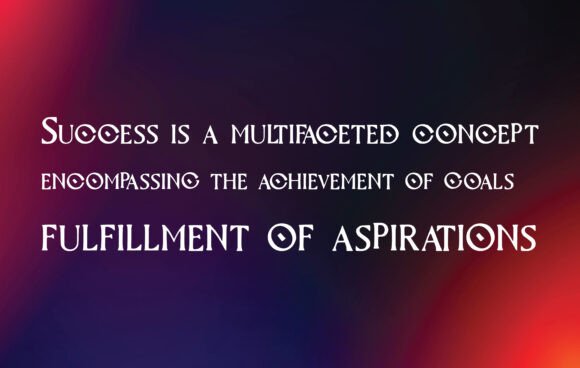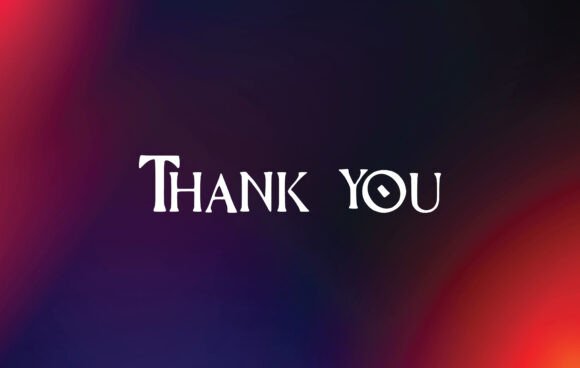
Introducing Everly Font: Elevate Your Designs with Elegance and Versatility
Are you tired of using the same old fonts in your designs? Look no further than Everly Font, a game-changing typeface that’s about to become your new favorite. This font is designed to be a true favorite, and for good reason – it’s legible, versatile, and looks great as both title and body text. Whether you’re a designer, crafter, or DIY enthusiast, Everly Font has the potential to take your creative ideas to the highest level.
What Makes Everly Font So Special?
Everly Font is more than just a pretty face – it’s a highly functional and adaptable typeface that’s perfect for a wide range of design applications. Its clean lines, elegant curves, and generous spacing make it easy to read and visually appealing. Whether you’re using it for magazine headlines, t-shirts, social media graphics, branding, wedding invitations, or cards, Everly Font is sure to impress.
One of the best things about Everly Font is its incredible versatility. Here are just a few ideas to get you started:
- Magazine Headlines: Use Everly Font to create eye-catching headlines that grab readers’ attention and draw them in.
- T-Shirts and Apparel: Add a touch of elegance to your t-shirt designs with Everly Font – it’s perfect for creating stylish and memorable logos.
- Social Media Graphics: Elevate your social media presence with Everly Font – use it to create stunning graphics that showcase your brand’s personality.
- Branding: Establish a consistent brand identity with Everly Font – it’s perfect for creating logos, business cards, and other marketing materials.
- Wedding Invitations: Make your wedding invitations truly special with Everly Font – its elegant design is sure to impress your guests.
- Cards and Stationery: Add a touch of sophistication to your cards and stationery with Everly Font – it’s perfect for creating beautiful and memorable correspondence.
Why Designers and Crafters Love Everly Font
So why do designers and crafters love Everly Font so much? Here are just a few reasons:
- Legibility: Everly Font is incredibly easy to read, even at small sizes – making it perfect for body text and captions.
- Flexibility: Everly Font is highly adaptable and can be used in a wide range of design applications.
- Elegance: Everly Font has a sophisticated and elegant design that’s sure to elevate your designs.
- Uniqueness: Everly Font is a unique and distinctive typeface that’s sure to help your designs stand out from the crowd.
Getting Started with Everly Font
Ready to start using Everly Font in your designs? Here are a few tips to get you started:
- Experiment with Different Sizes: Play around with different font sizes to find the perfect fit for your design.
- Pair with Other Fonts: Experiment with pairing Everly Font with other fonts to create unique and interesting combinations.